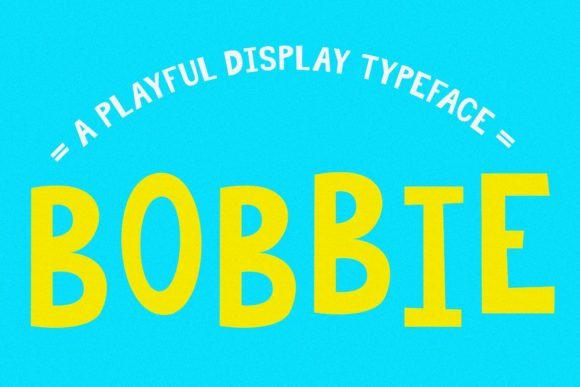
Unleash Your Creativity with the Playful Bobbie Font
Do you remember the feeling of excitement when you first started brainstorming a new project? Maybe it was a childhood drawing, a school art project, or even a creative business venture – whatever it was, the spark of imagination was there. As you began to bring your idea to life, the possibilities seemed endless, and your creativity knew no bounds.
Now, imagine having a font that captures the essence of that excitement and brings it to your design. Say hello to Bobbie Font – a charming, playful display font that’s sure to turn any creative idea into a true standout. With its childlike playfulness, Bobbie Font is the perfect companion for designers looking to add a touch of whimsy to their projects, from kids’ books and educational materials to advertising campaigns and beyond.
Whether you’re a seasoned designer or just starting out, Bobbie Font is a valuable addition to your toolkit. Its unique character and versatility make it an excellent choice for designers looking to inject a bit of fun and personality into their work.
Bobbie Font Key Features
- Font Family: Bobbie is a sans-serif font family designed by Laura Worthington.
- Language Support: Bobbie supports over 100 languages, including Latin-based scripts and many non-Latin scripts, making it a versatile choice for global applications.
- Unique Characteristics: Bobbie is known for its clean, modern design, with a subtle flair and a friendly, approachable feel, making it suitable for a wide range of applications, from digital interfaces to printed materials.
Bobbie Font Review
I recently had the chance to work with Bobbie Font, and I have mixed feelings about it. On the one hand, it has some great qualities that make it a pleasure to use.
- ✨ Versatile: Bobbie Font is available in 6 different weights, making it suitable for a wide range of applications, from body text to headings.
- ✨ Friendly: The font’s rounded edges and soft curves give it a friendly, approachable feel that works well for brands targeting a younger audience.
- ✨ Readable: Bobbie Font is highly legible, even at small sizes, making it a great choice for digital applications where text is often small.
- ⚠️ Limited language support: Bobbie Font only includes Latin characters, which may limit its use for non-Latin languages.
- ⚠️ Not ideal for formal contexts: While Bobbie Font is great for casual applications, it may not be the best choice for formal or professional contexts where a more traditional font is preferred.
Overall, I think Bobbie Font is a solid choice for certain projects, but it’s not a one-size-fits-all solution. With its friendly feel and high legibility, it’s a great option for digital applications or brands targeting a younger audience. However, it may not be the best choice for more formal or complex projects.
To use Bobbie Font in PowerPoint or Word, select the text tool and choose Bobbie Font from the font menu. You can adjust the font size, style, and color using the formatting options. Bobbie Font is a great choice for creating presentations, reports, and documents that require a clean and modern look.
To get the most out of Bobbie Font, use it in combination with other modern design elements, such as geometric shapes and bold colors. Experiment with different font sizes and styles to create visual interest. Additionally, use Bobbie Font consistently throughout your design to create a cohesive look.